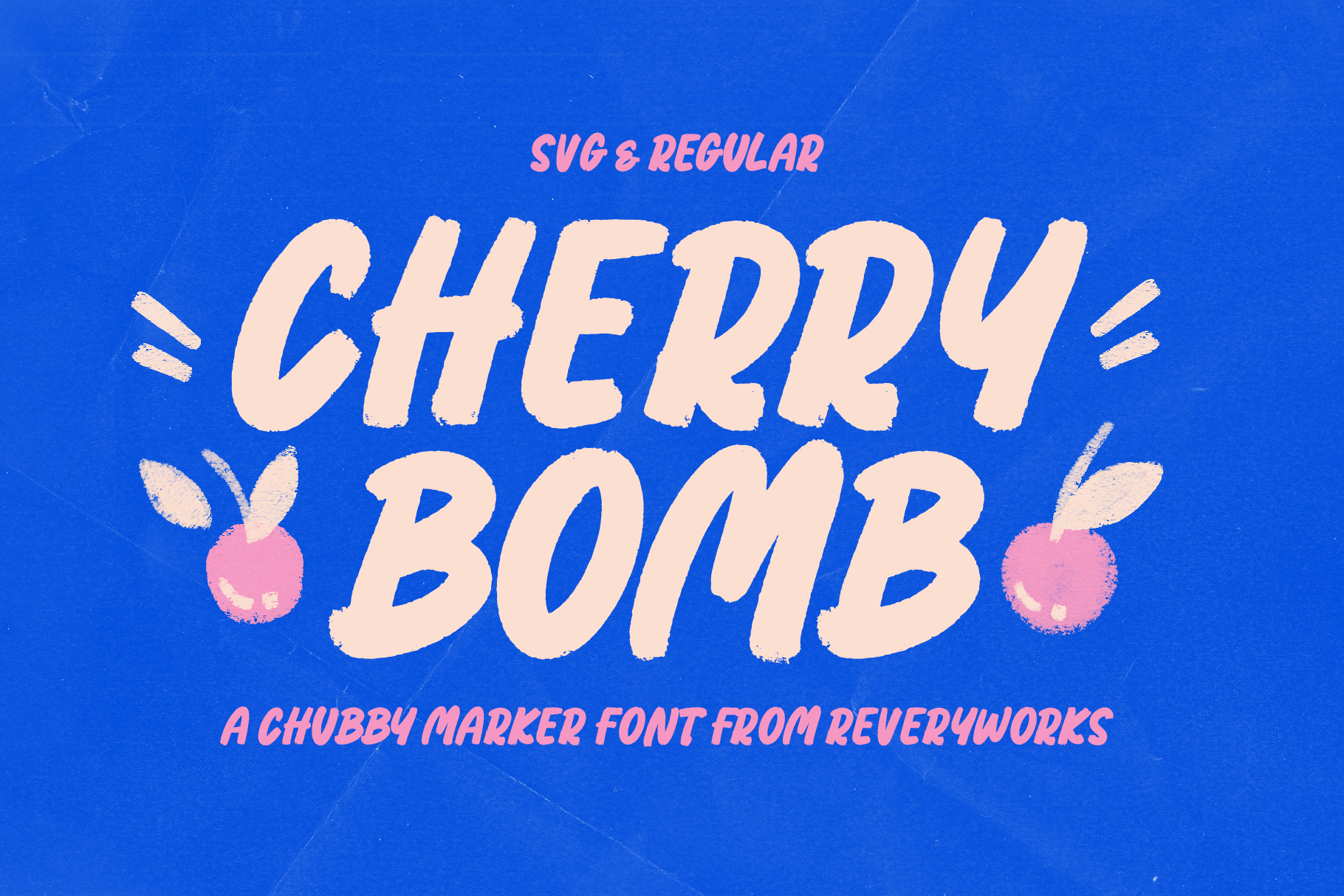
Cherry Bomb - A Chubby Marker Font
Introducing CHERRY BOMB! A chubby marker font is here to Make a statement!
Available in both SVG and regular fonts with subtle texture and imperfections on the edges. It's slanted, super dynamic and energetic! Use it to create eye-catching headlines, branding and advertisements. Looks great for food and fashion content. You can also create fun and quirky wordy greeting cards! It's super versatile!